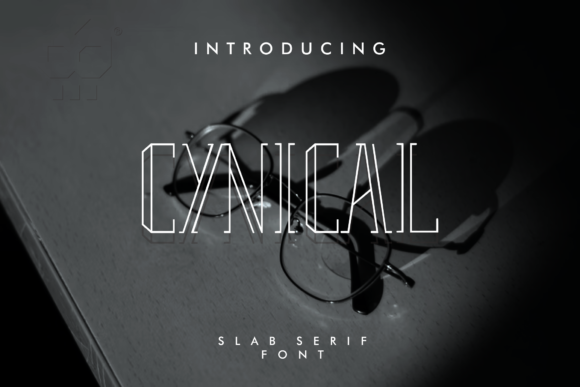
Prepare yourself to be mesmerized by Cynical, an exquisite slab serif font that will captivate your designs and ignite your creativity. Cynical is not just a font; it's a statement piece that will make your words dance off the page with an air of sophistication and intrigue.
Crafted with utmost care by bhubbiberrystudio, Cynical possesses a unique blend of boldness and elegance that makes it the perfect choice for a myriad of design projects. Whether you're creating striking product packaging, designing a captivating brand identity, or simply seeking a font that will elevate your social media presence, Cynical will effortlessly elevate your creations to new heights.
Step into a world where words take on a life of their own, effortlessly commanding attention and leaving an indelible impression. Cynical is more than a font; it's a tool that empowers you to express yourself with unparalleled style and impact.
Indulge in the beauty of Cynical and experience the transformative power of typography. Let your designs radiate confidence, sophistication, and a touch of edgy allure that will set your work apart from the ordinary. Cynical is the font that will ignite your passion for design and unlock your creative potential. Embrace its allure, and prepare to captivate your audience with every word you write.